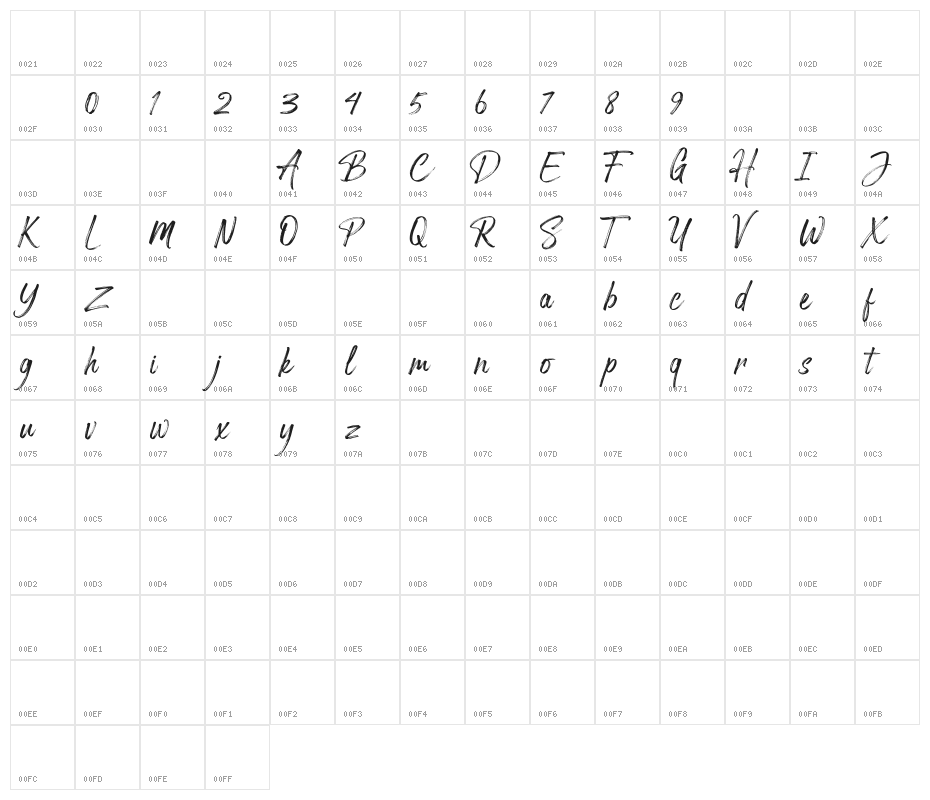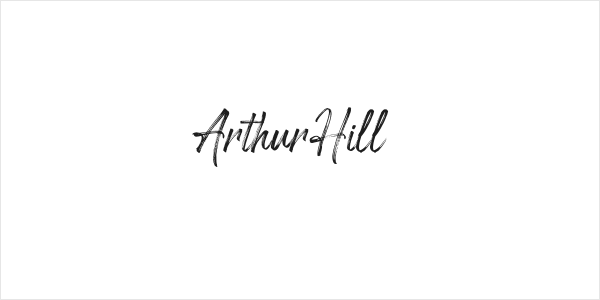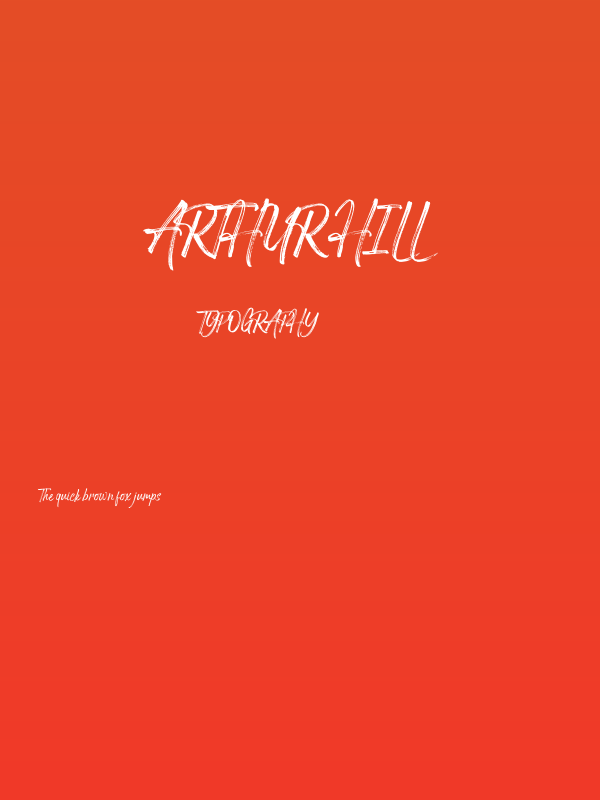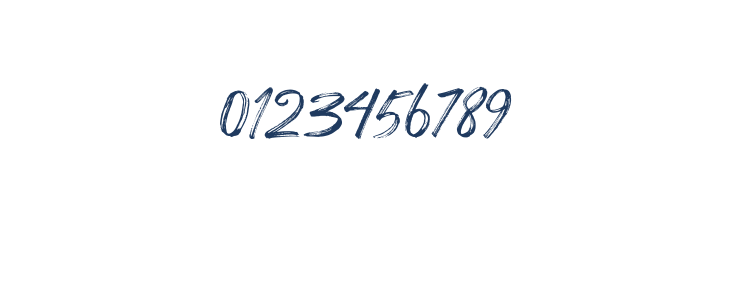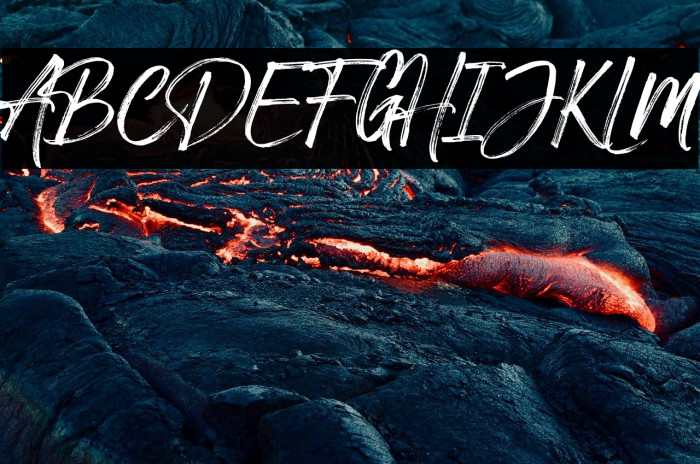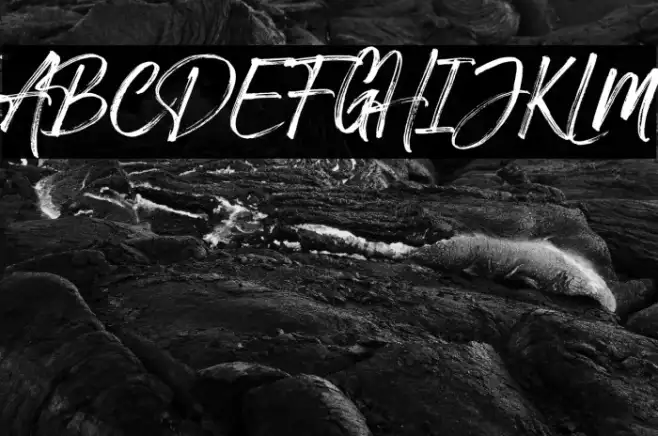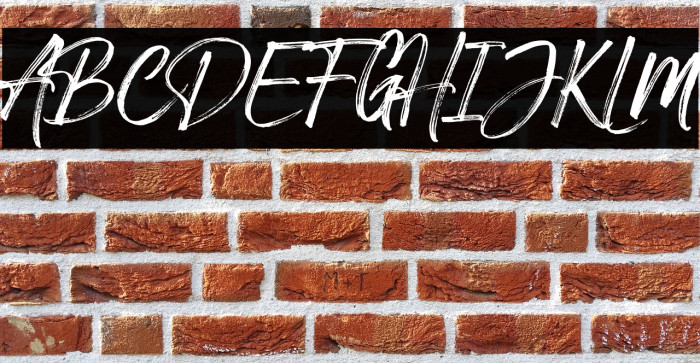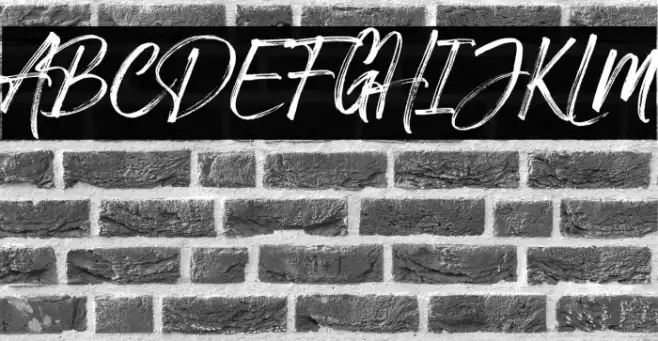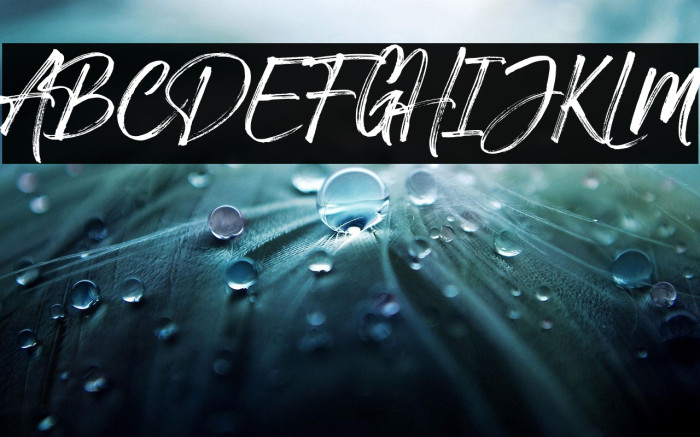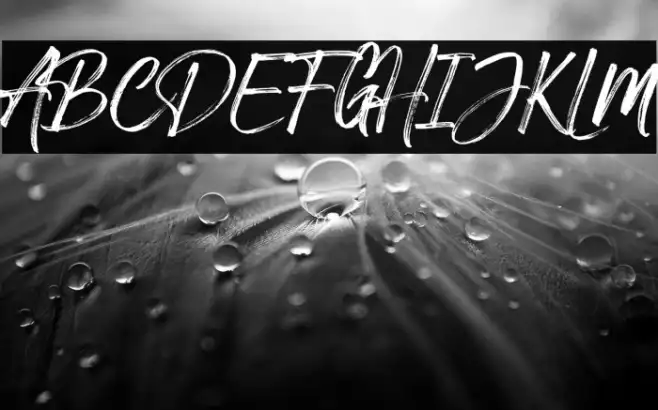
Arthur Hill Font
Arthur Hill Description
This font features a dynamic and expressive brush script style, characterized by its fluid strokes and energetic appearance. The letters are crafted with a sense of movement, giving them a lively and artistic feel. The uppercase letters are bold and prominent, while the lowercase letters maintain a consistent flow, enhancing readability. The numbers and special characters follow the same stylistic approach, ensuring a cohesive look across all elements. The brush-like texture adds a handcrafted touch, making it suitable for projects that require a personal and creative flair.
| Proposed Projects | Ideal for branding, packaging, posters, and invitations where a personal and creative touch is desired. |